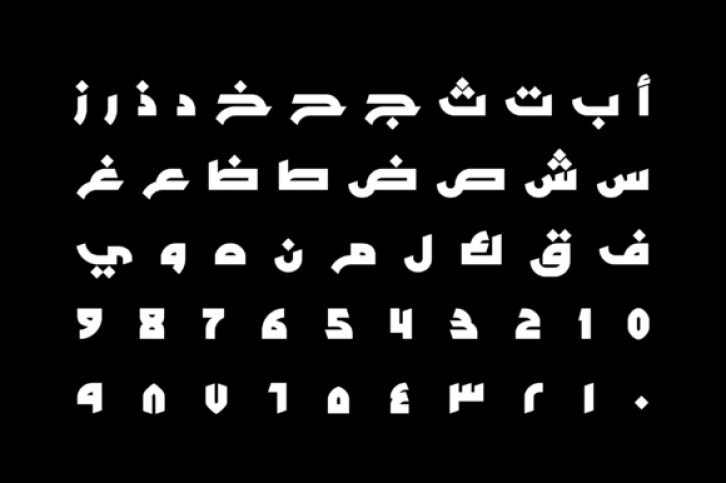
Tarhaal is an Arabic font that is inspired by visual styles and dialects from various languages that use Arabic script. If translated from the Arabic language, the word Tarhaal indicates decampment or nomadism. Hence the font is not characterized by a specific pattern of Arabic script, but it combines varied styles in simple and unique letterforms.